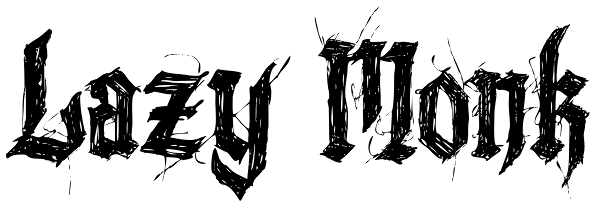
Lazy Monk
In the past it was the monk's duty to duplicate the bible, as they wrote everything by hand. The "Lazy Monk" font shows how these replica could have appeared if the monks had been too drunk or too lazy to rewrite the bible.